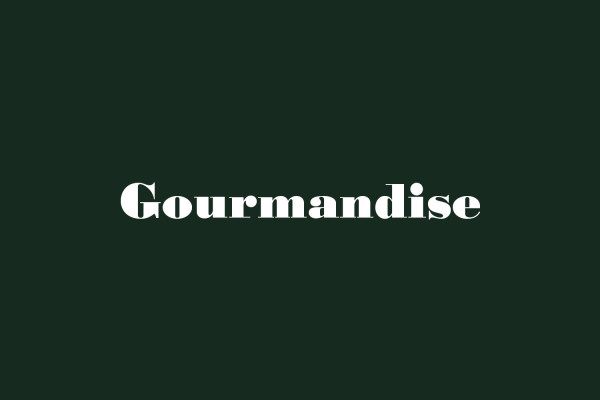
Gourmandise Font is a serif typeface that was designed by a British graphic designer ClaudeP. This is a new-style serif typeface with a highly contrasted texture and serifs. The font was created with the intention of being used for public signage and other forms of display typography.
Gourmandise Font